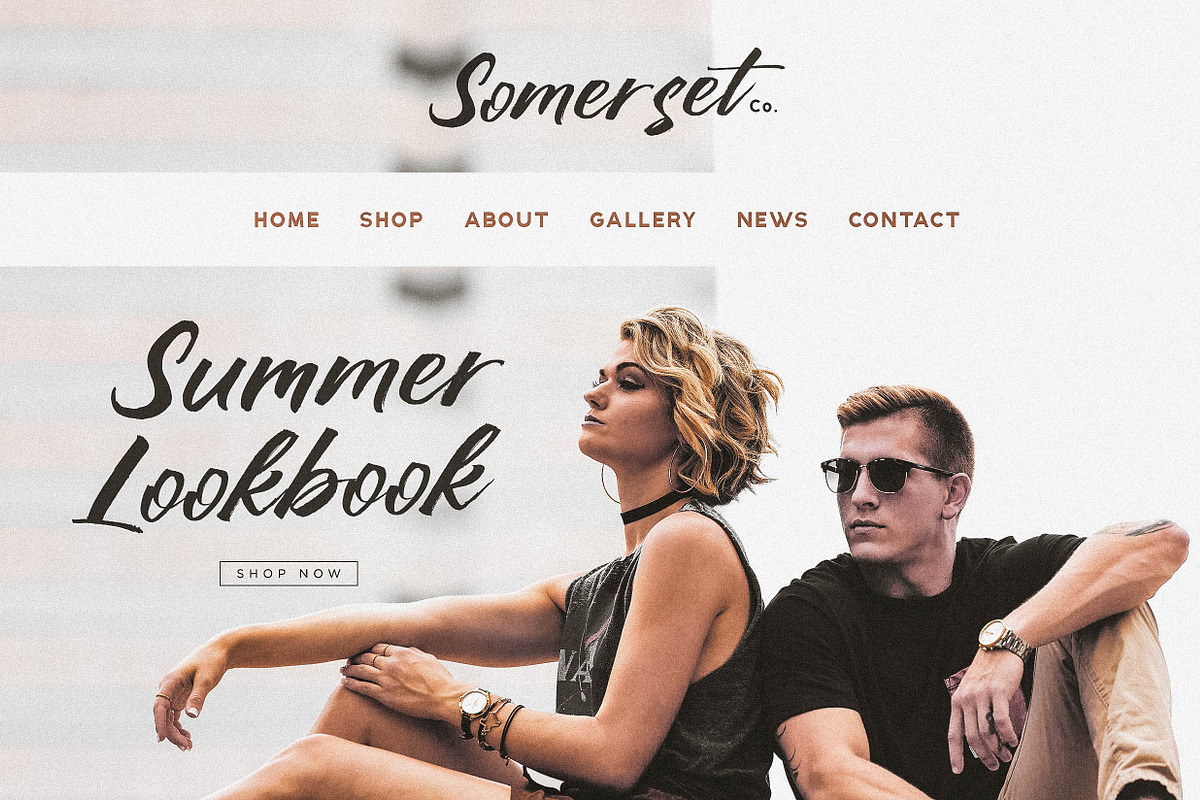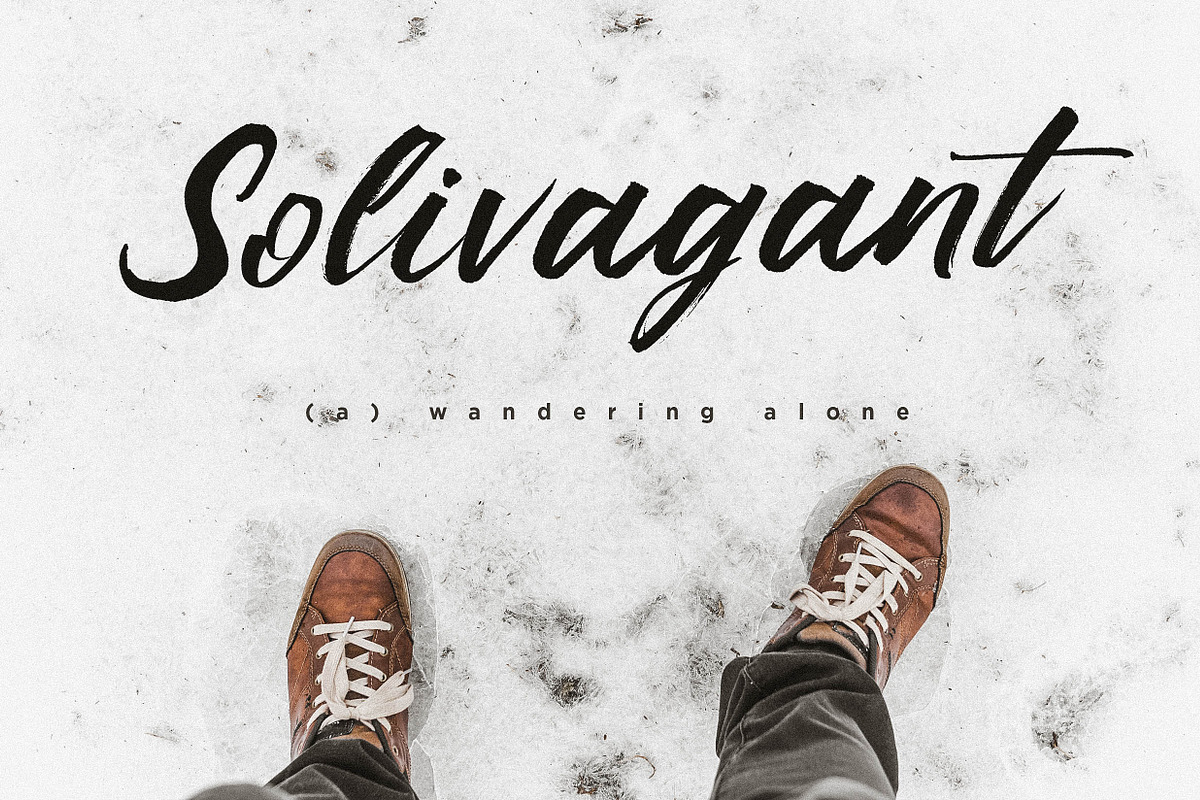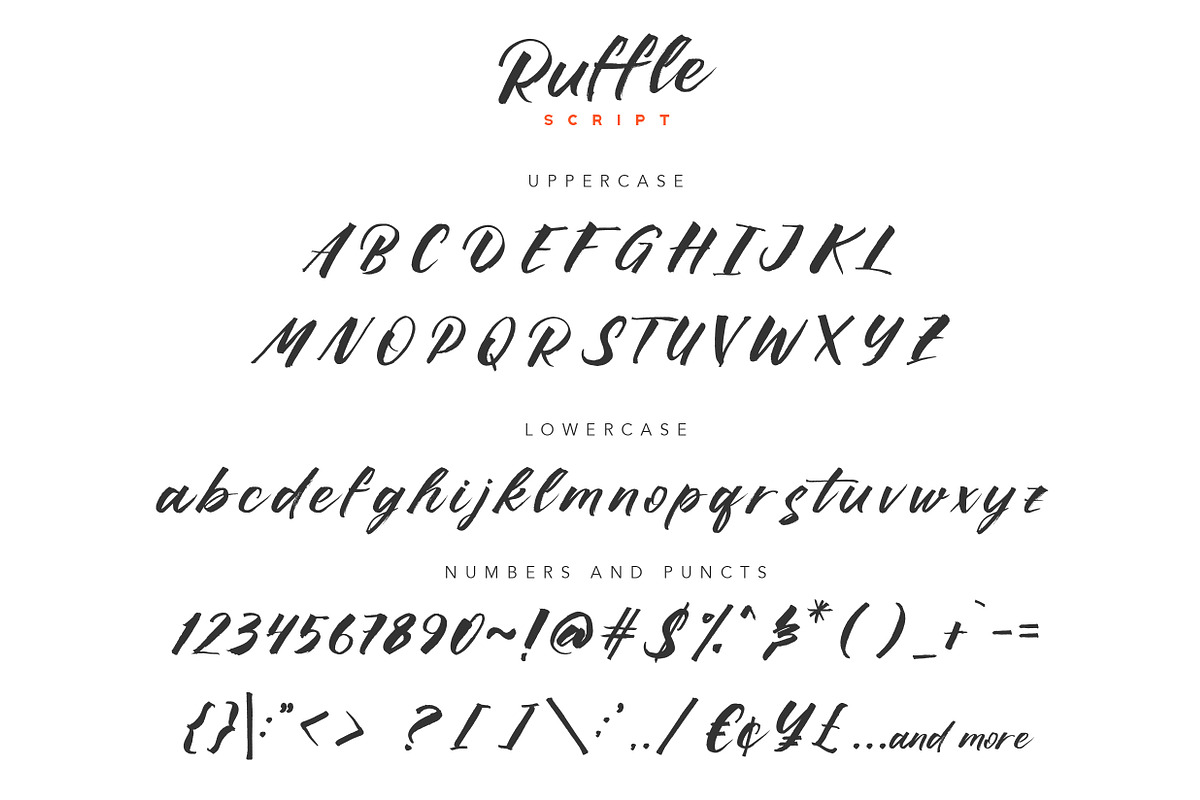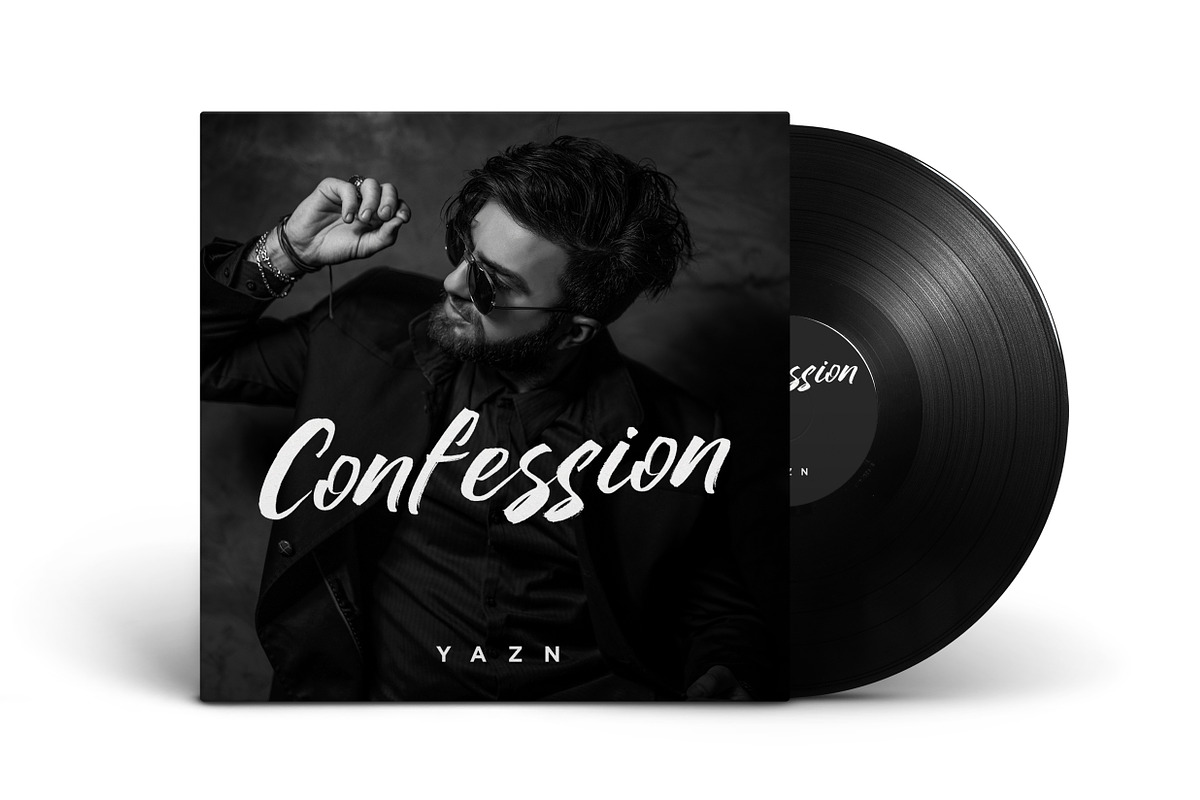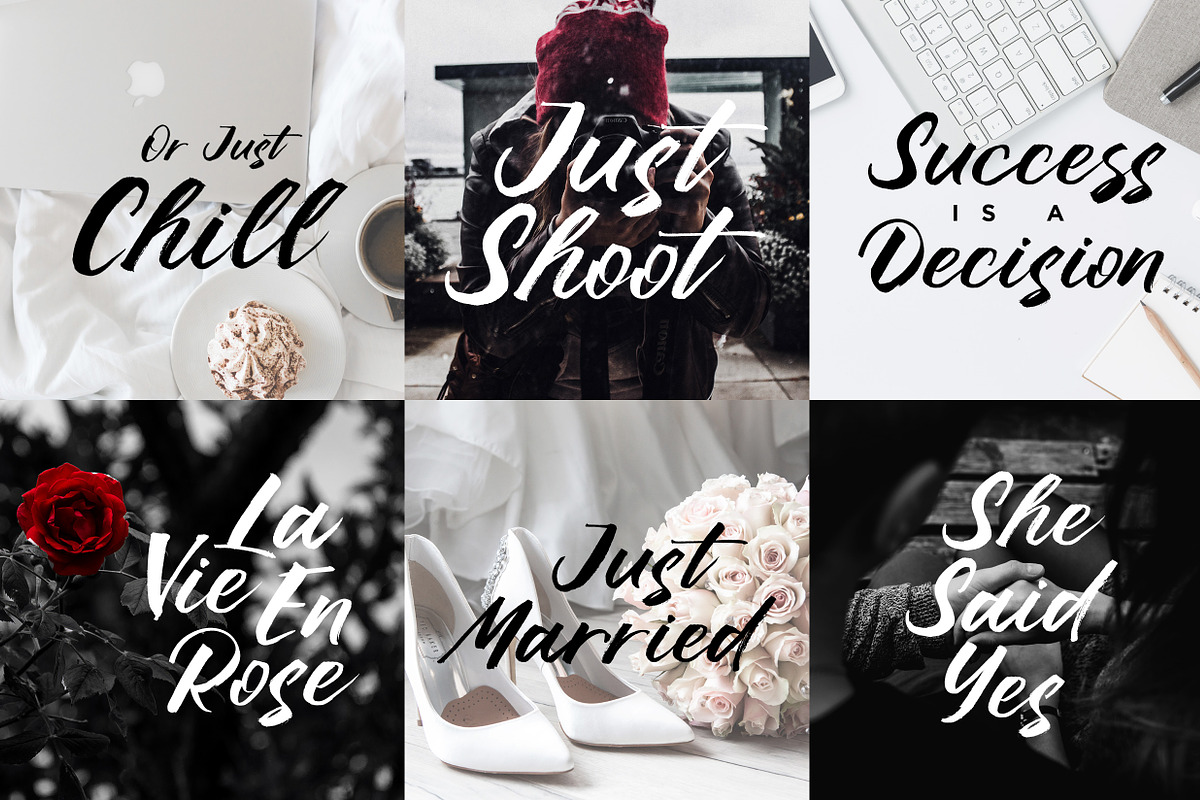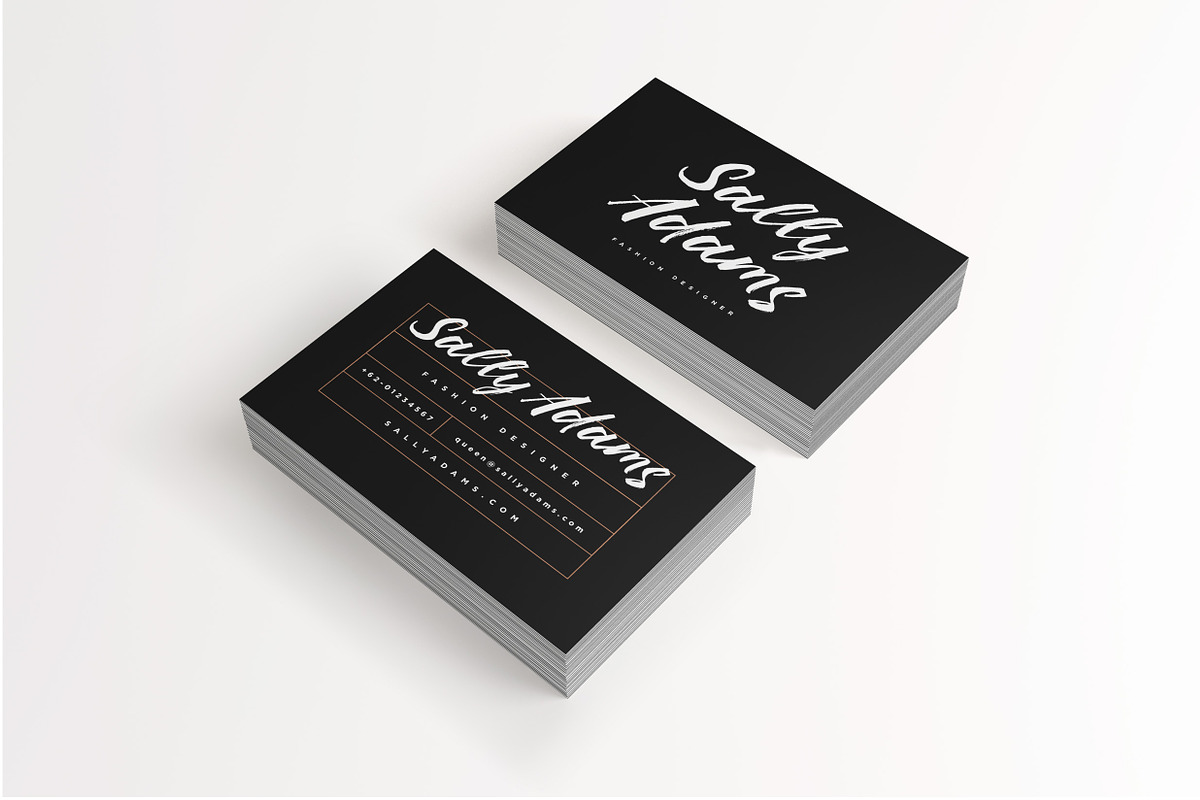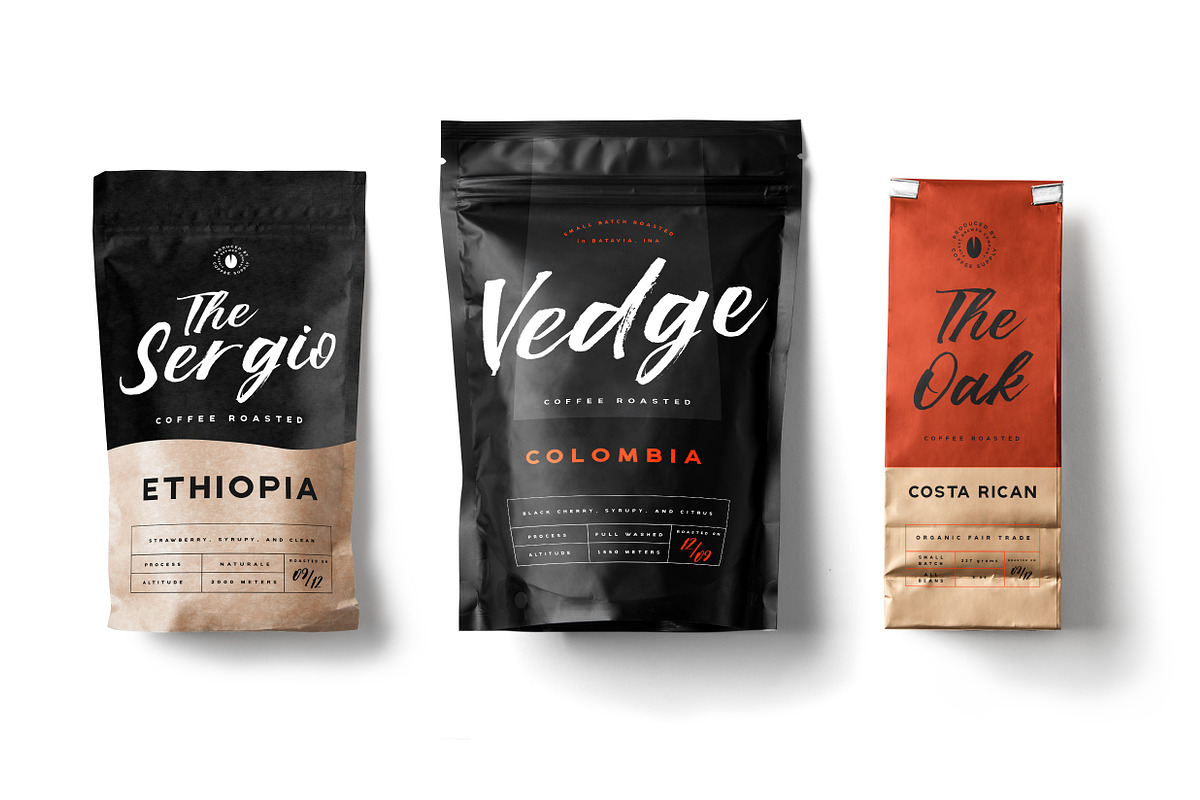
Ruffle - Casual Brush Font
Free your mind, free your soul, go wild and explore your imagination withRuffle Script! A fast hand-stroke inked brush font with the urban and casual feels but still classy look in every letters. Would be a good pick for your urban casual vintage branding needs. Release the young spirit in you!
Multilanguage Support ( Check out the display image for the details).
Double-letter ligatures. To mimicking the natural handwriting movement.